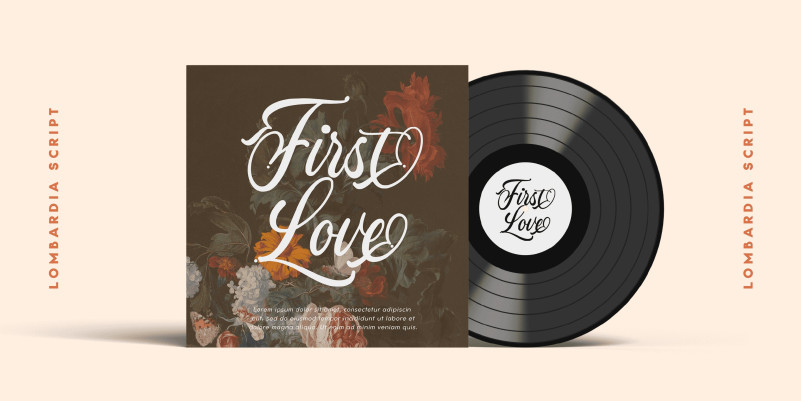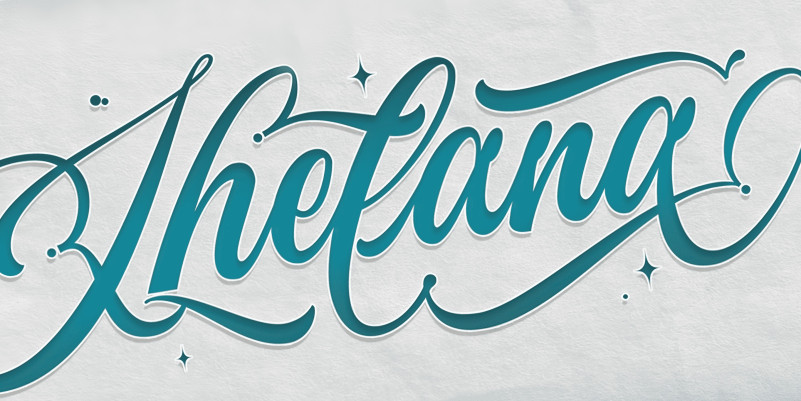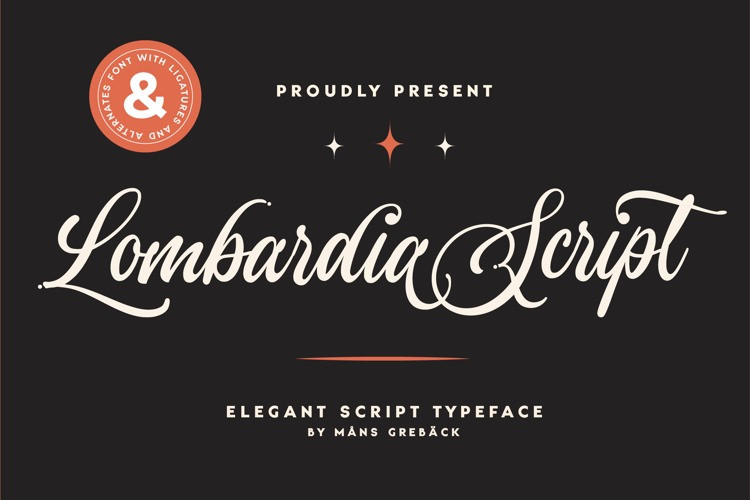
Lombardia Script Font
Lombardia Script Font, is a script font with a bunch of alternates that will make your project look stylish and stunning. It comes with ending swashes that support the retro vibes. You can use this font for any design such as logo, branding, apparel, and merchandise.
Use underscores _ anywhere in a word to make a swash.
Example: Wonder_woman
Use multiple underscores to make different swashes.
Example: Extra__vagant